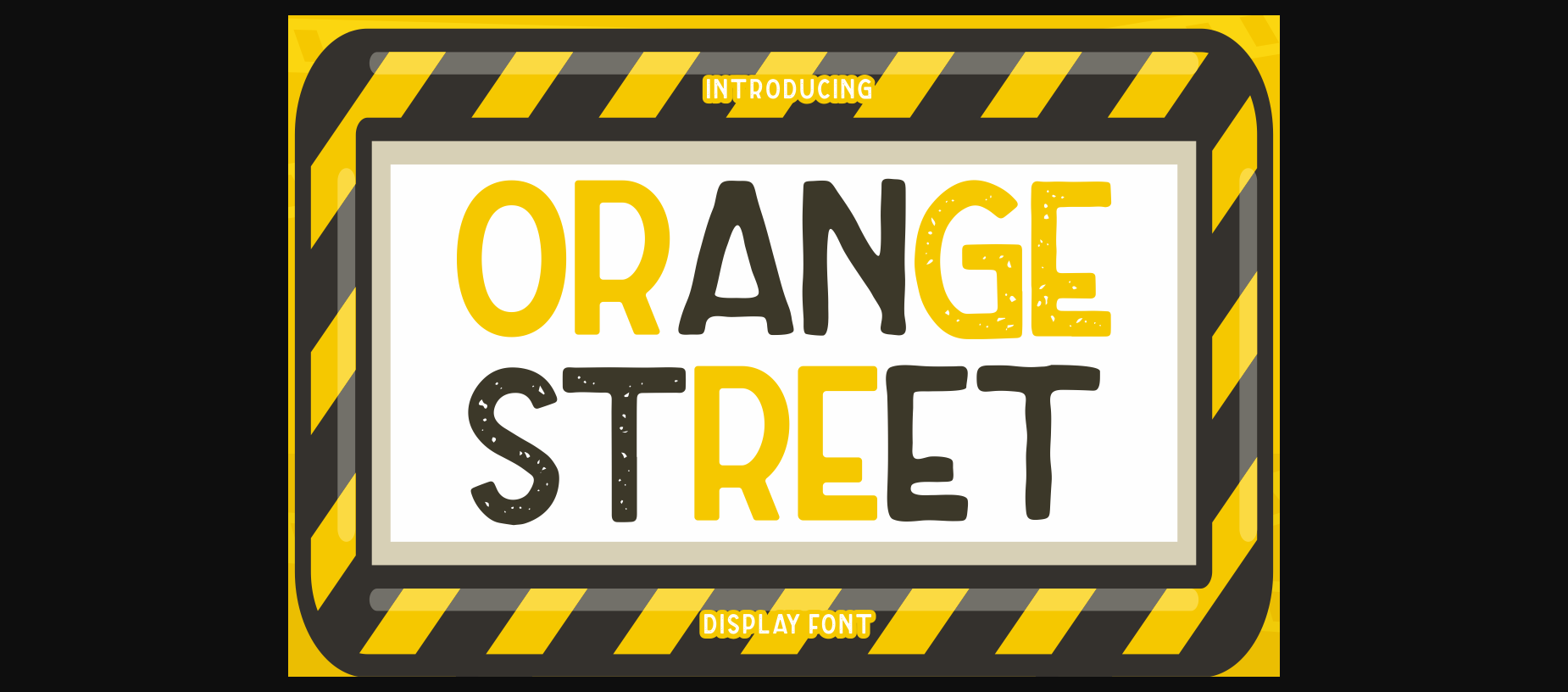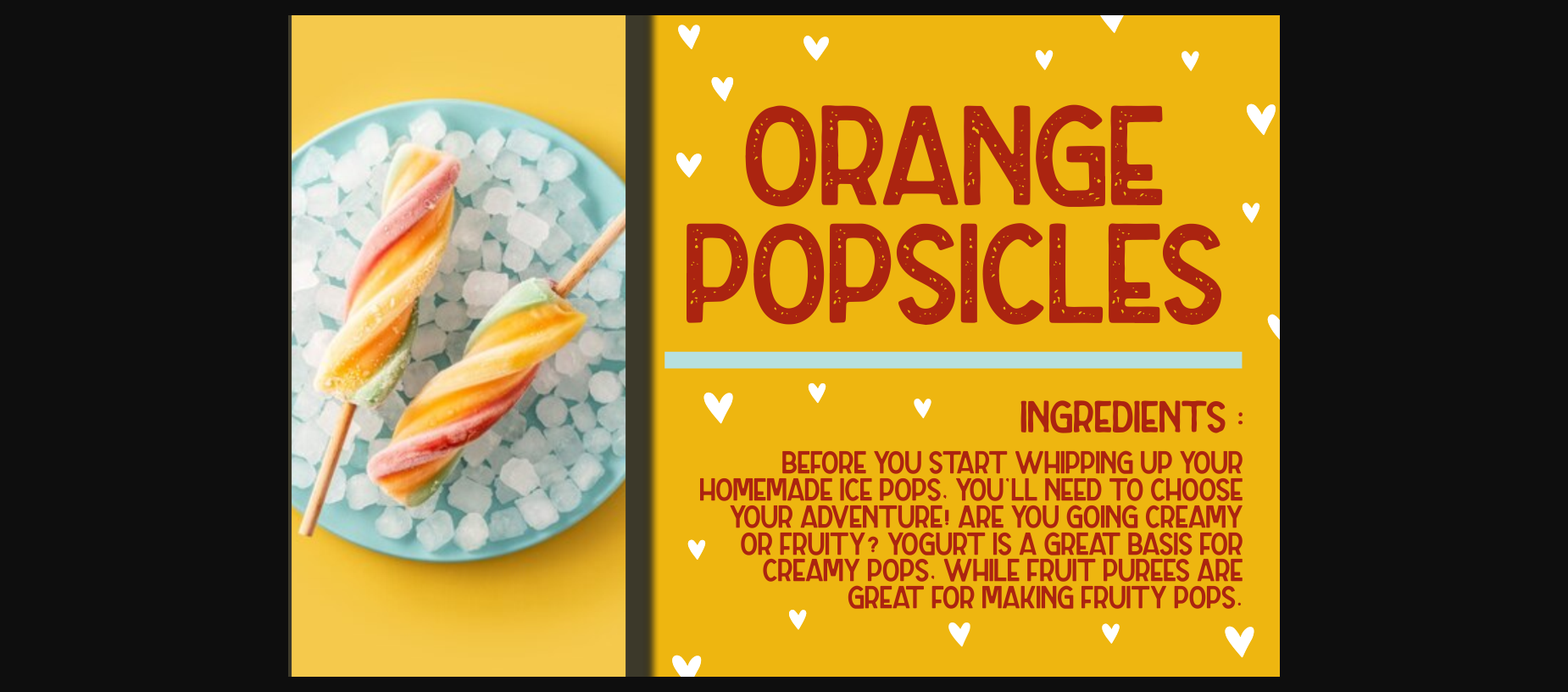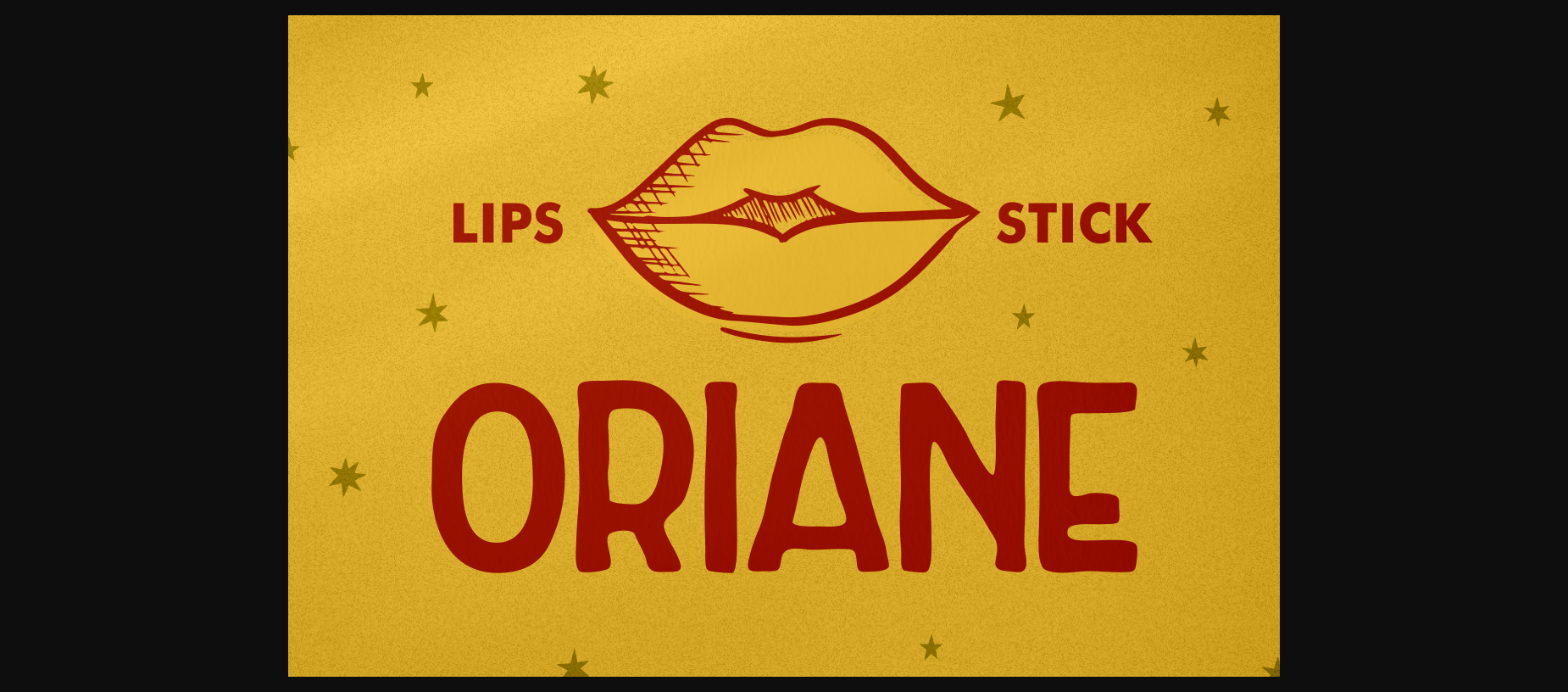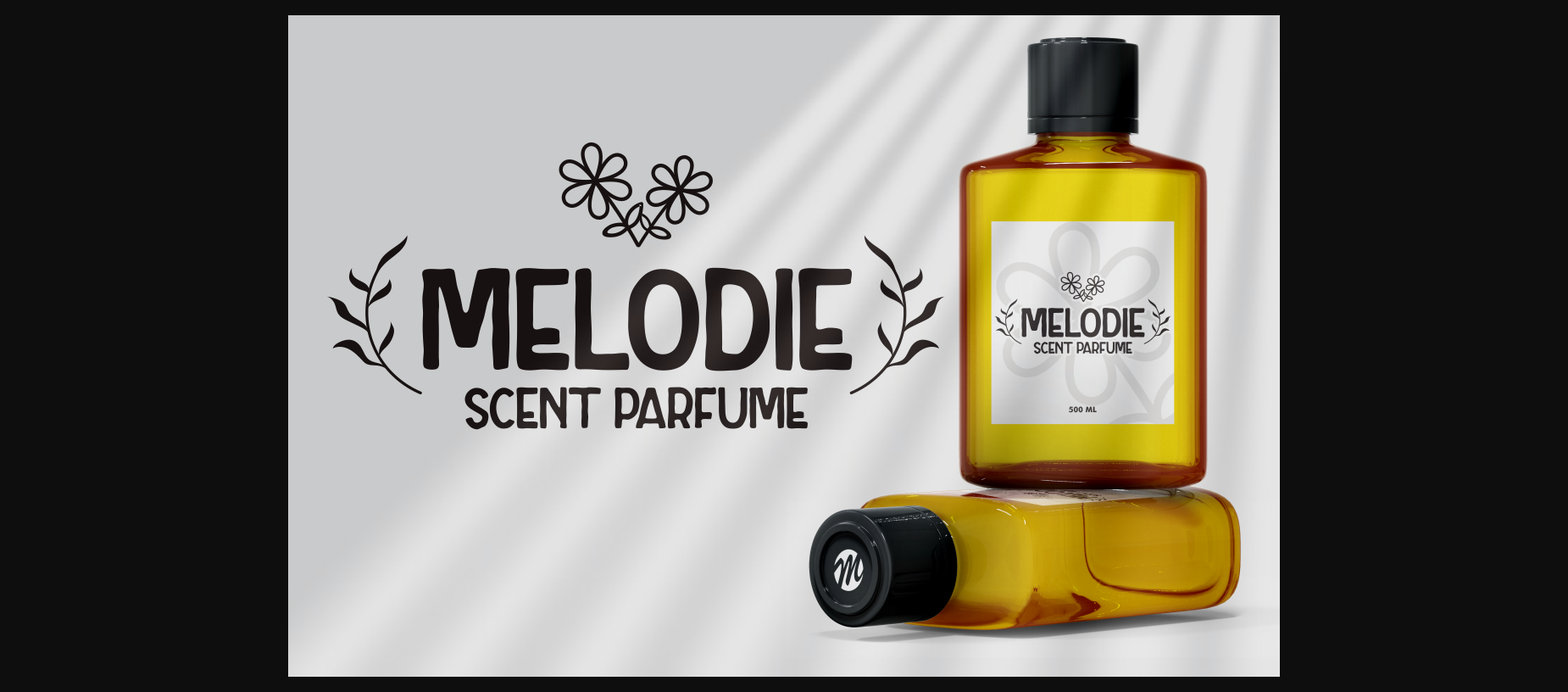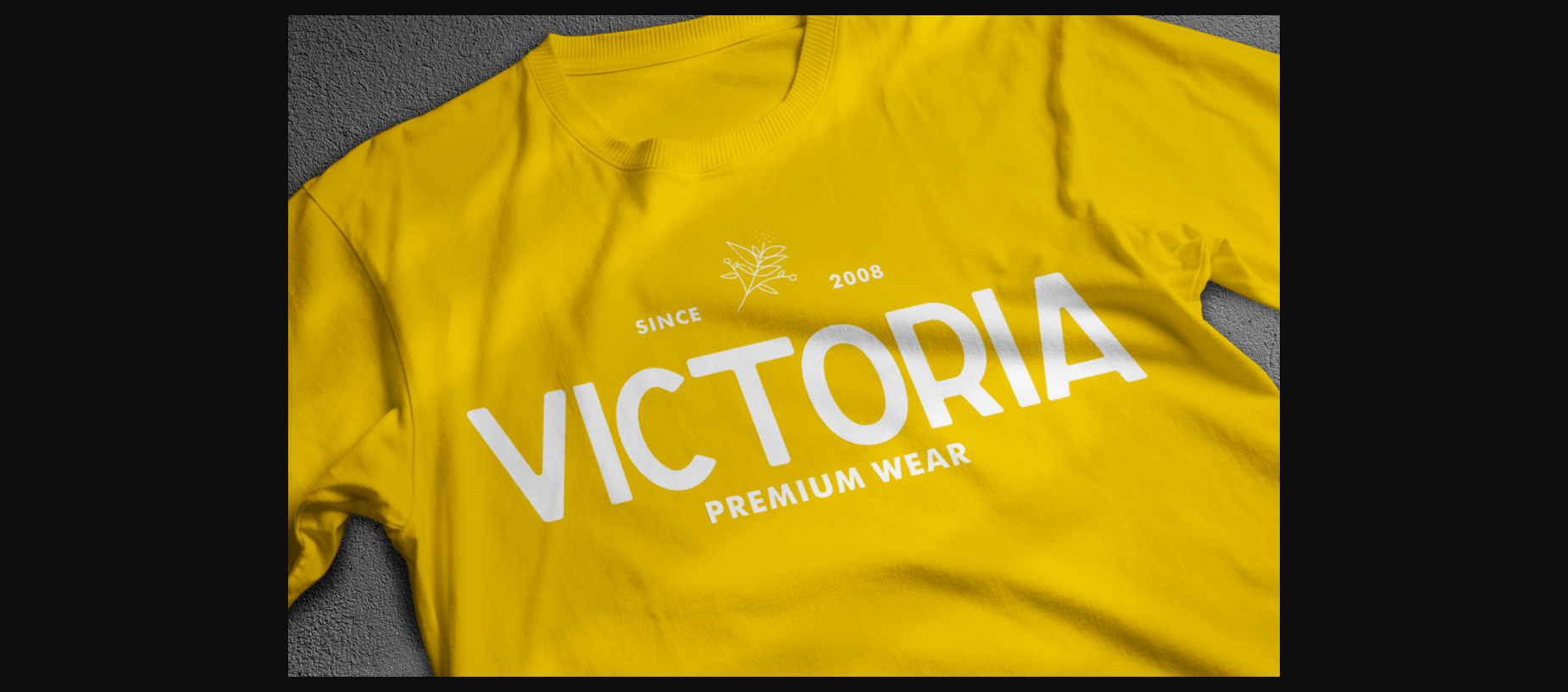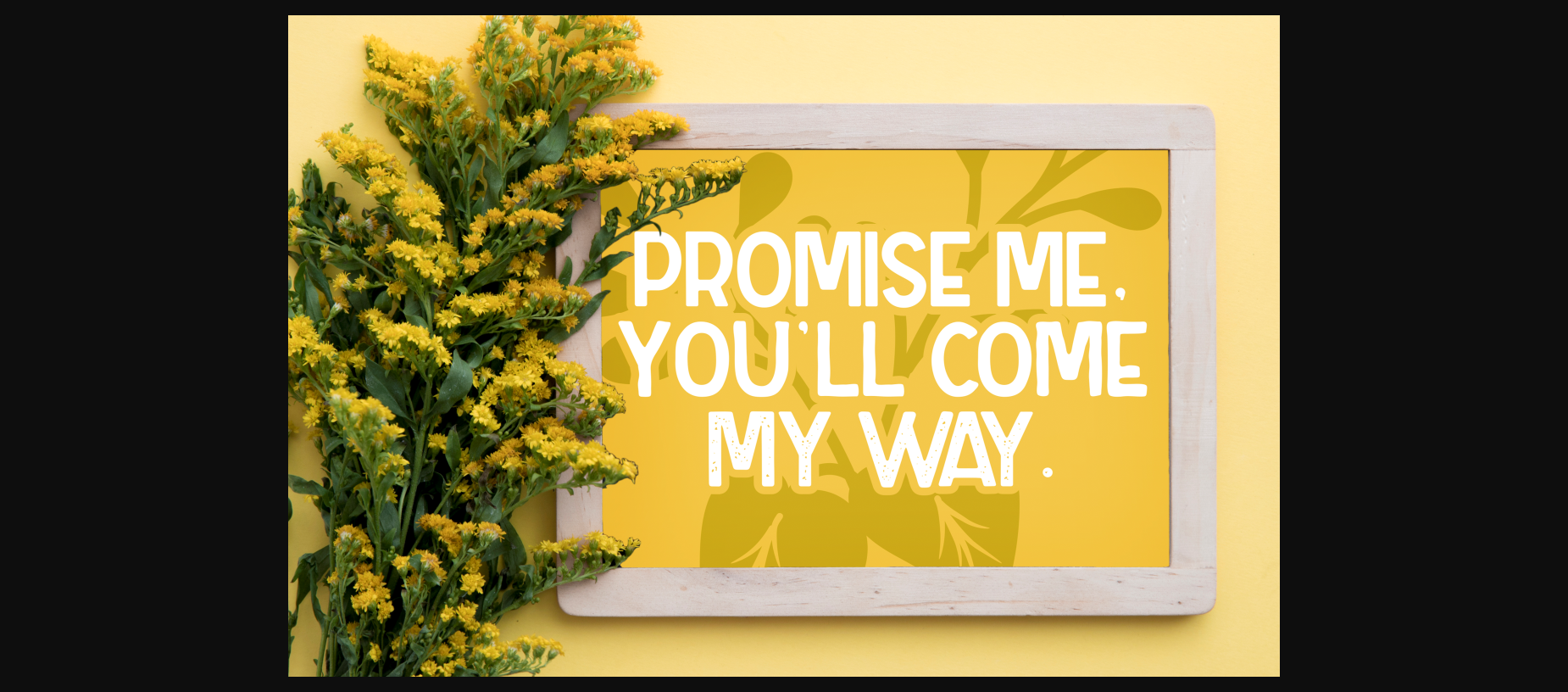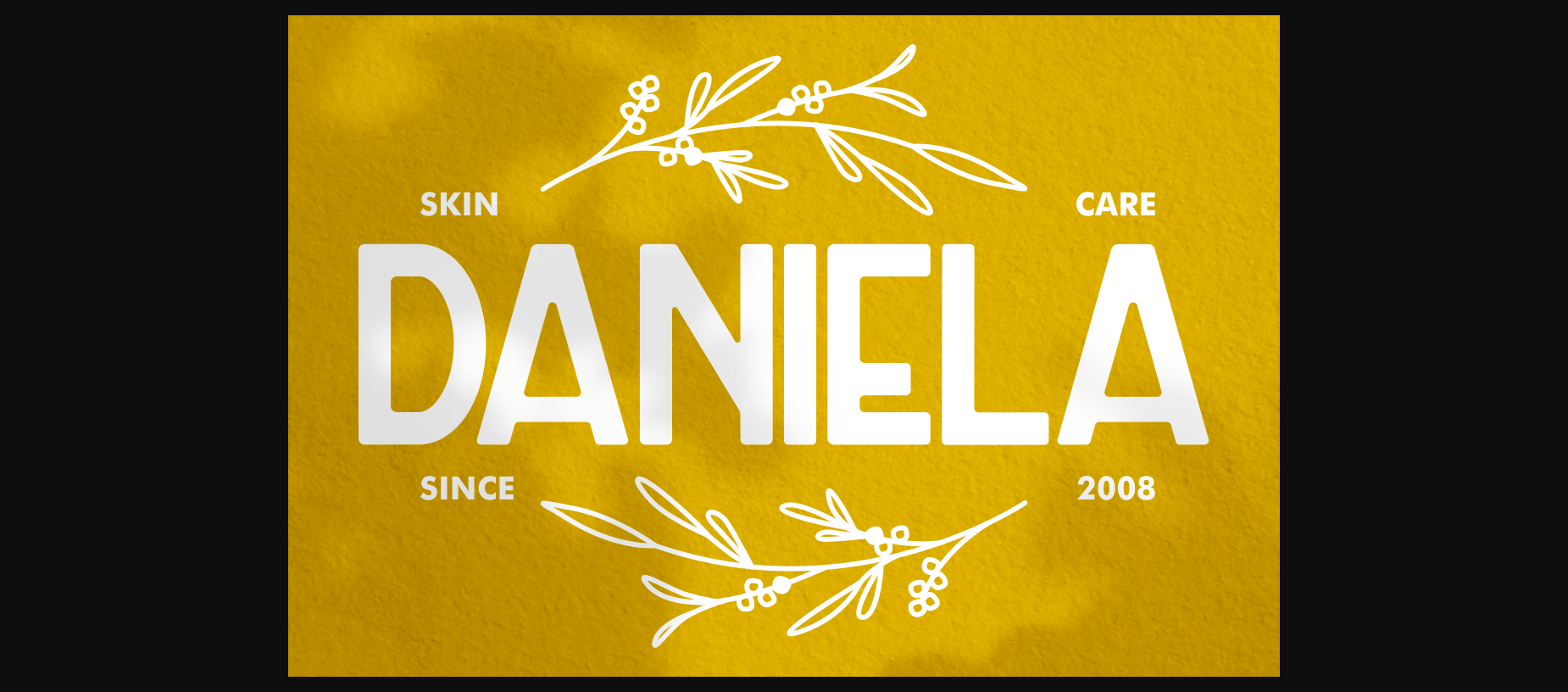
Orange Street Font
About Orange Street Font
Orange Street – Rounded Modern Sans Font is an all-caps sans-serif typeface that offers three distinct versions: clean, rough, and textured. With its versatile character set, this font seamlessly adapts to various design themes. Its flexibility is further enhanced by the range of available versions, making it a valuable asset for design projects spanning modern, retro, classic, and playful aesthetics. Whether it’s for logos, branding, posters, titles, headlines, printing materials, quotes, or more, Orange Street lends itself perfectly to an array of creative applications.